Canva AI for Logo How to Get a Premium Look
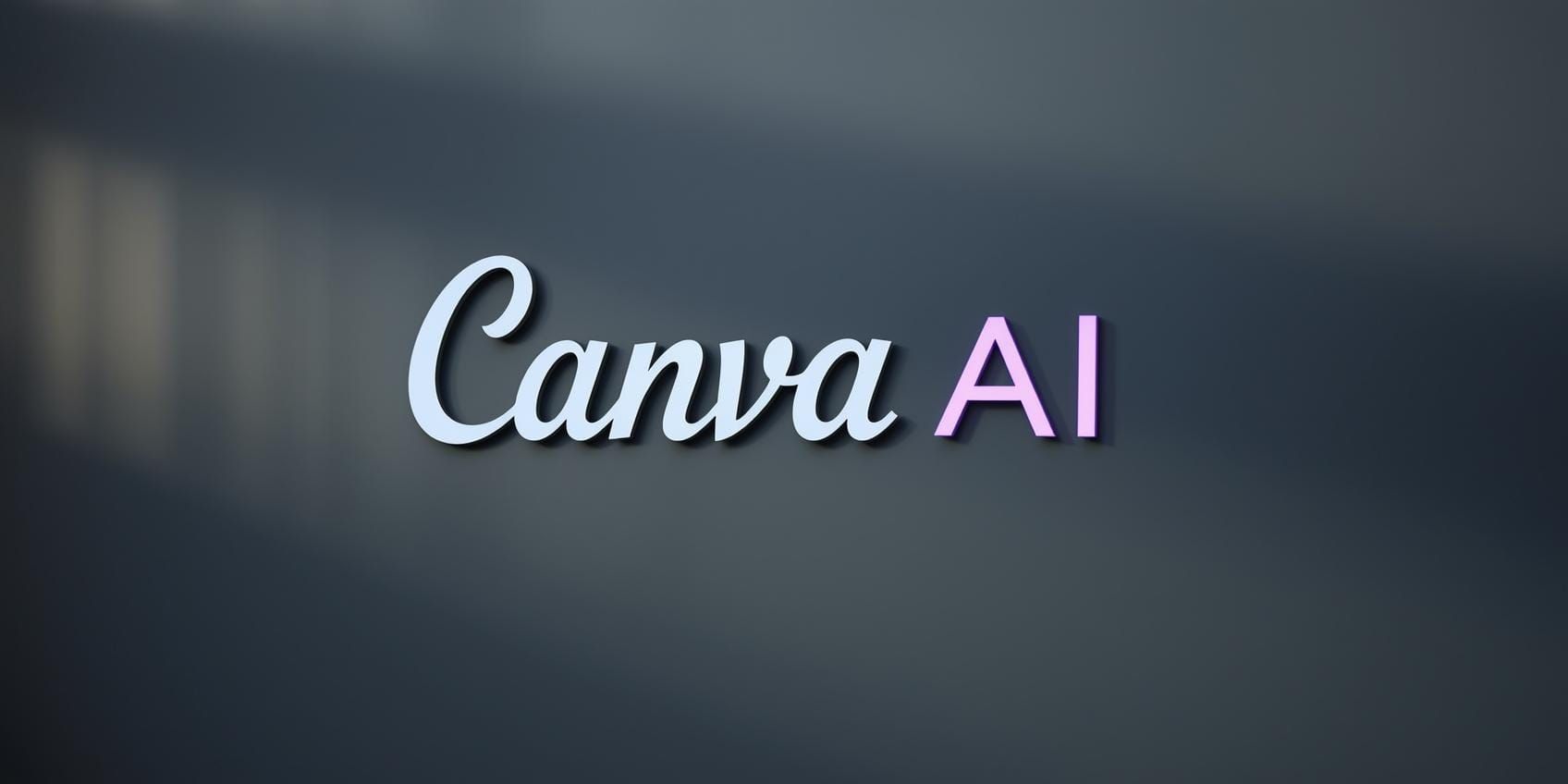
If your AI logos keep coming out generic, busy, or “clip-art-ish,” it’s usually not your taste. It’s the prompt and the finishing steps. Canva AI for logo can create strong starting points fast, but premium results come from clear direction like style rules, a simple layout system, and clean typography choices. Canva also offers an AI logo generator and other AI tools under its Magic Studio umbrella, which can speed up early concepts when used with the right constraints.
This guide shows you a practical workflow for Canva AI for logo like how to prompt for premium, how to avoid common mistakes, and how to refine the output into a clean brand mark you’d actually use.
Canva AI for Logo Works Best When You Choose One Logo Style First
Premium logos are simple because they have one clear identity lane. Before you generate anything, pick one of these:
- Wordmark: brand name only, typography-led
- Monogram: initials, minimal and scalable
- Icon mark: a simple symbol that stands alone
- Badge: contained shape (circle, shield), great for packaging
- Combination mark: icon + wordmark lockup
If you try to combine all five in one prompt, Canva AI for logo will usually give you crowded results.
Canva AI for Logo Prompt Rules that Instantly Look More Premium
Use these rules in every prompt. They’re the difference between “AI art” and “logo direction.”
1. Keep it premium with constraints
Add phrases like:
- “minimal vector style”
- “flat design”
- “no gradients”
- “no shadows”
- “no texture”
- “one or two colors”
- “high contrast”
- “clear negative space”
- “simple silhouette”
- “icon-ready at small sizes”
- “no text” (if you want icon-only)
Canva’s AI image generation features (like Magic Media) are designed to generate graphics from text prompts, so being specific about style and constraints matters.
2. Premium detail level
Ask for fewer details, not more:
- “minimal detail lines”
- “geometric shapes”
- “smooth curves”
- “balanced proportions”
This is the fastest way to make Canva AI for logo feel more “brand studio” and less “random illustration.”
Canva AI for Logo Step-by-Step Workflow for Premium Results
Here’s a simple process that works even if you’re new.
1. Write a one-sentence brand brief
Use this format:
Brand name + niche + vibe + audience + 1 visual clue
Example:
“North & Thread, minimal apparel label, calm and premium, for young professionals, uses a subtle compass icon.”
2. Generate 10-20 variations, then pick 2 directions
Don’t hunt for “the one” on the first try. With Canva AI for logo, your job is to pick a direction (shape language, tone, icon idea).
3. Refine only one variable at a time
Change just one:
- icon concept
- line weight
- color count
- badge shape
- symmetry
This keeps results consistent and helps you learn what prompts actually work.
4. Rebuild clean inside Canva
Even if your AI result is close, premium logos usually require:
- cleaner geometry
- consistent spacing
- balanced stroke weight
- simplified forms
Canva AI for Logo Prompt Template You Can Reuse
Copy this and swap the bracket parts:
Template (premium icon):
“minimal vector icon for (brand niche), (icon concept), flat design, geometric shapes, strong negative space, 1-2 colors, no gradients, no shadows, centered, icon-ready, clean silhouette.”
Use this as your base for Canva AI for logo and you’ll get more consistent outputs.
Canva AI for Logo Prompt List for Premium Styles
Below are ready-to-copy prompts. Keep the wording tight, and change only the brackets.
1. Premium wordmark prompts
- modern minimal typography, wide letter spacing, clean kerning, black and off-white, premium feel, no icon.
- wordmark for a boutique brand, refined serif + simple spacing, minimal, high-end, no decorative flourishes.
- wordmark for a tech studio, geometric sans style, strong readability, balanced proportions, monochrome.
2. Premium monogram prompts
- monogram of initials “(AB)”, minimal vector, symmetrical, strong negative space, single-color.
- monogram, interlocking letters, clean geometry, subtle luxury, no gradients, icon-ready.
- monogram inside a circle badge, thin border, minimal lines, premium feel, single-color.
3. Premium icon mark prompts
- minimal icon of a (compass/leaf/mountain), flat vector, geometric, 2 colors max, strong silhouette.
- abstract icon for (niche), simple shapes, modern, balanced, no texture, no shadows.
- icon mark using negative space to form a (letter/shape), minimal, clever, one-color.
4. Premium badge prompts (packaging-ready)
- badge logo for (coffee/beauty/handmade), circle emblem, minimal lines, flat vector, simple icon centered, no text.
Canva AI for logo can absolutely help you get a premium look, but the premium part comes from your constraints and your finishing. Keep the style minimal, limit colors, prioritize negative space, and rebuild the best option cleanly with consistent spacing and typography to look premium and simple. Do that, and you’ll get logos that feel intentional, scalable, and brand-ready.